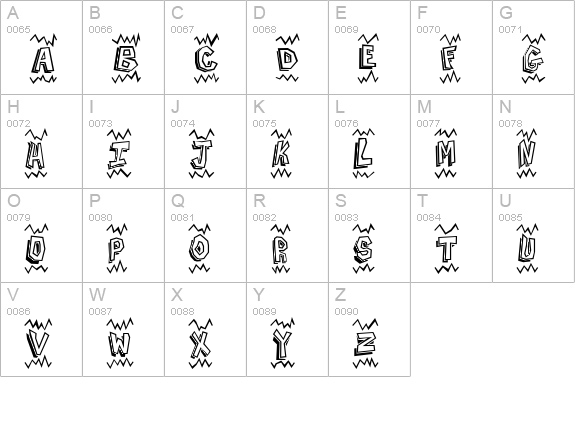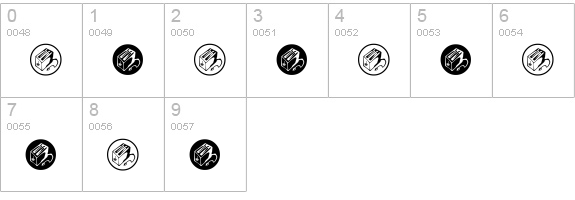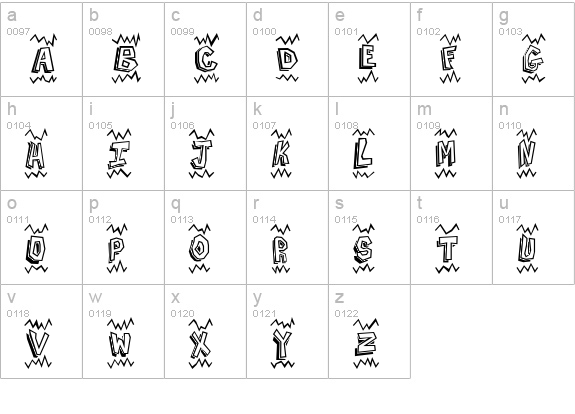
Introducing the bold and powerful Batman Beat the hell Outta Me font! This edgy and dynamic typeface is perfect for making a statement in your designs. With its sharp edges and commanding presence, this font truly embodies the spirit of the Dark Knight himself. What sets Batman Beat the hell Outta Me font apart is its versatility - perfect for headlines, posters, logos, and more. Whether you're creating a gritty comic book-inspired design or a sleek modern layout, this font will add a touch of superhero flair to your project. And the best part? Batman Beat the hell Outta Me font is completely free to download at FontsMarket.com! So go ahead and unleash your inner vigilante with this striking font that is sure to make a bold impact on your next design project.